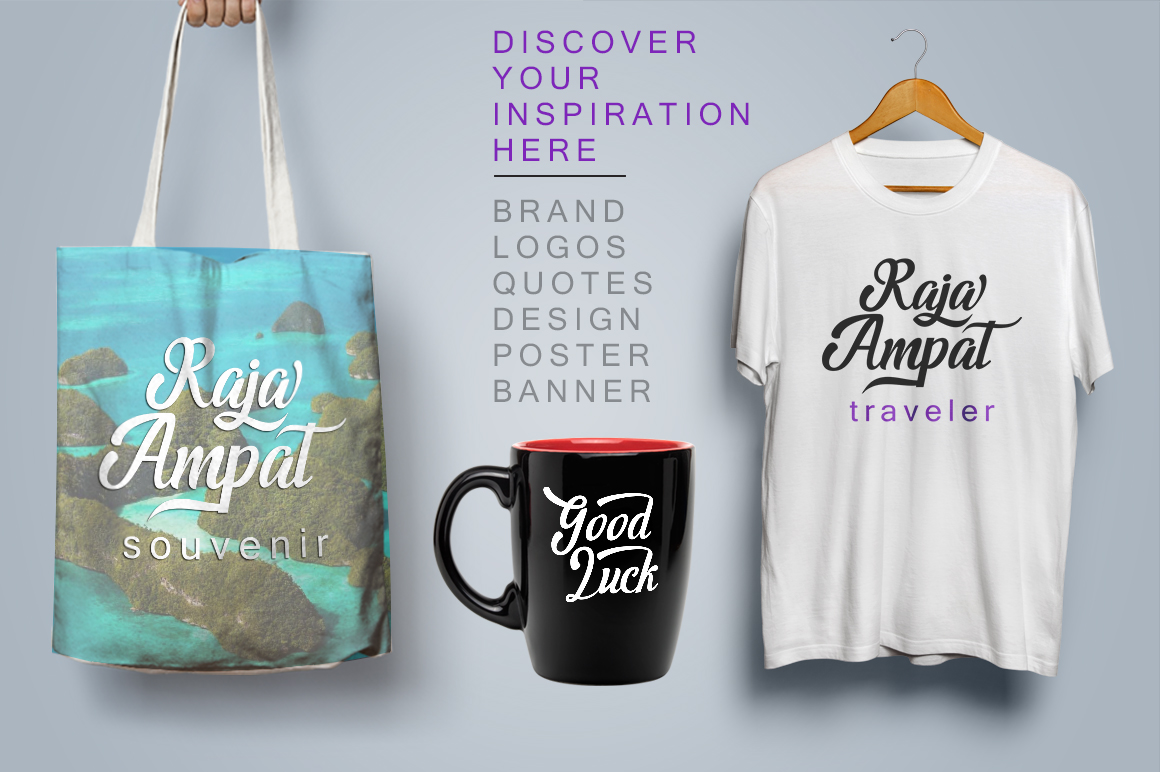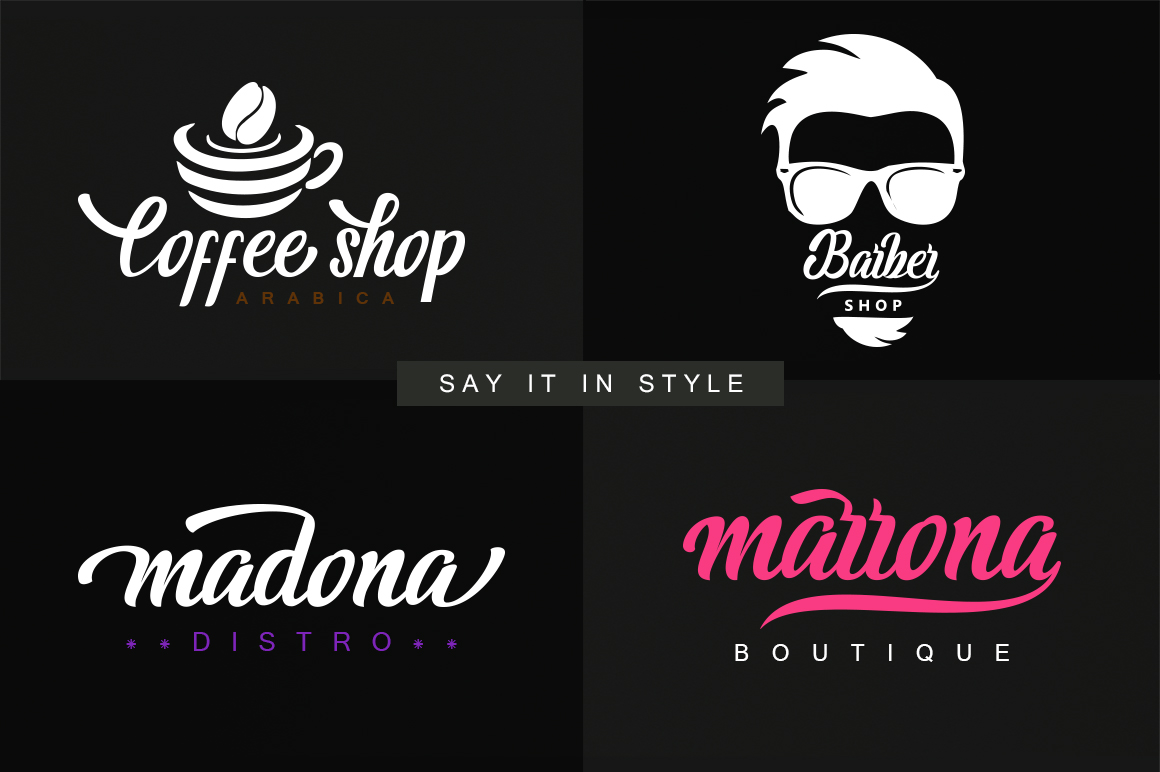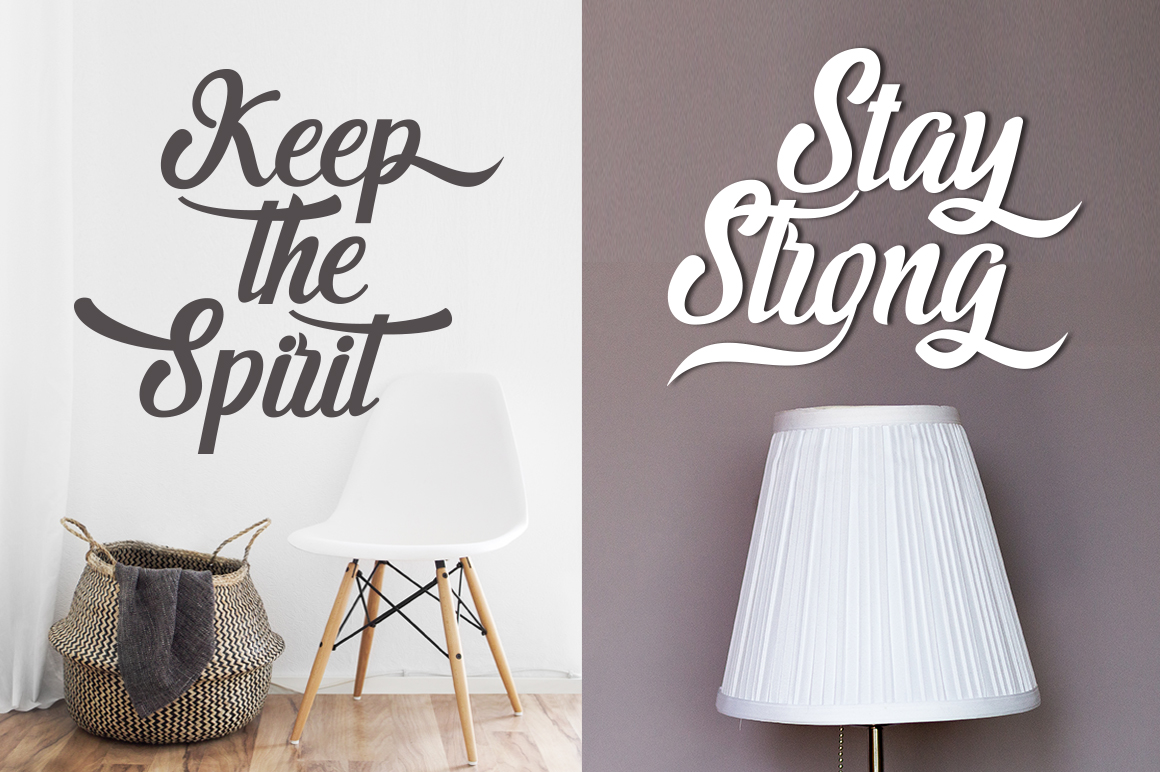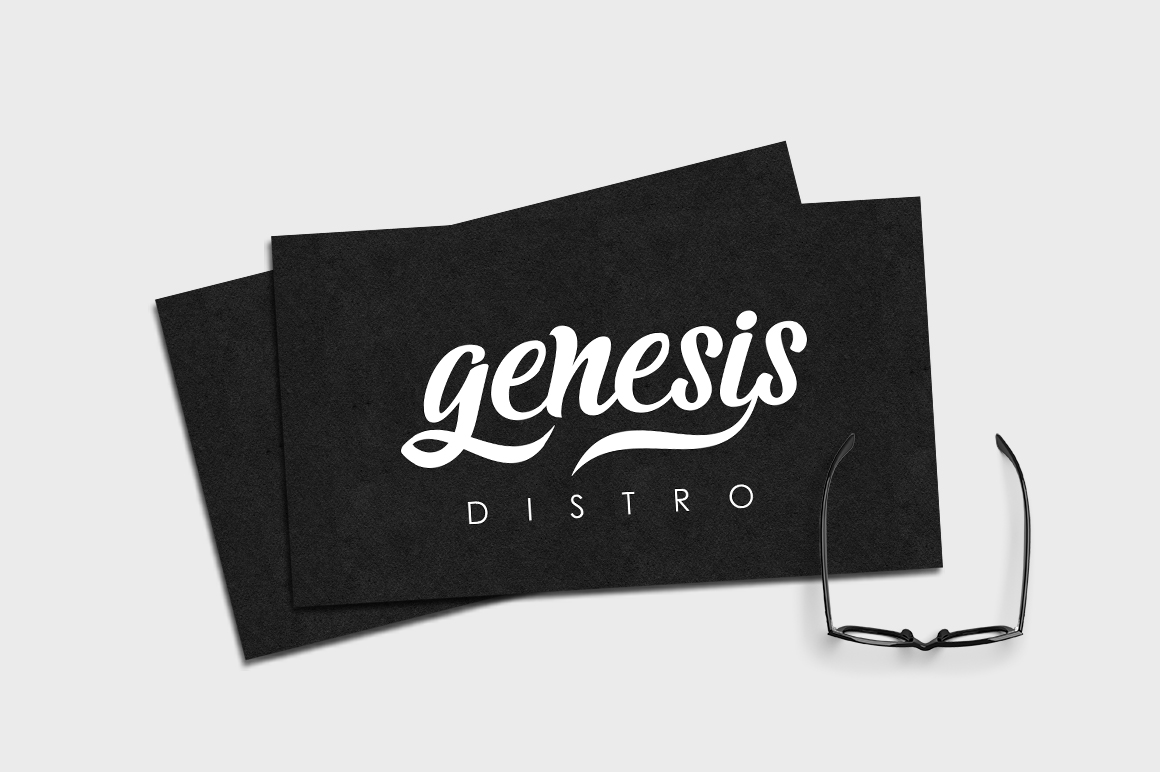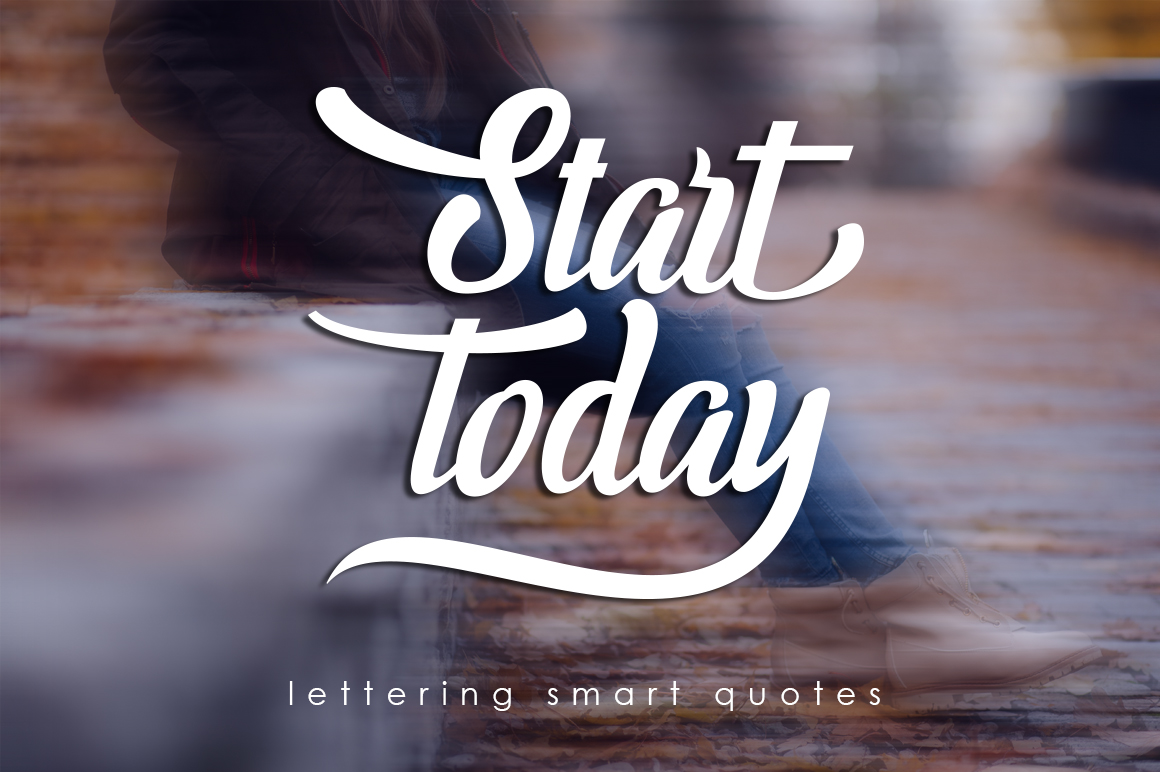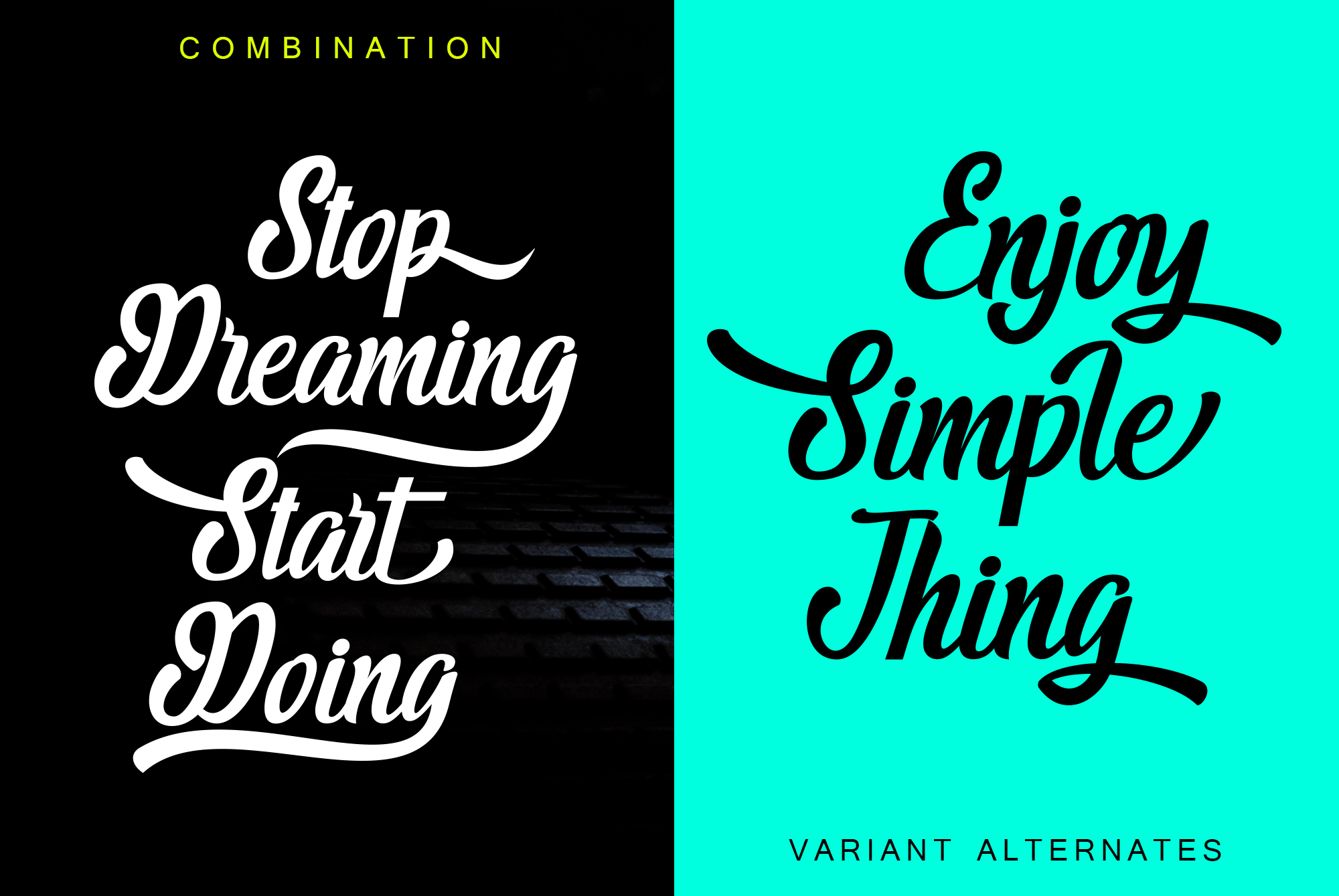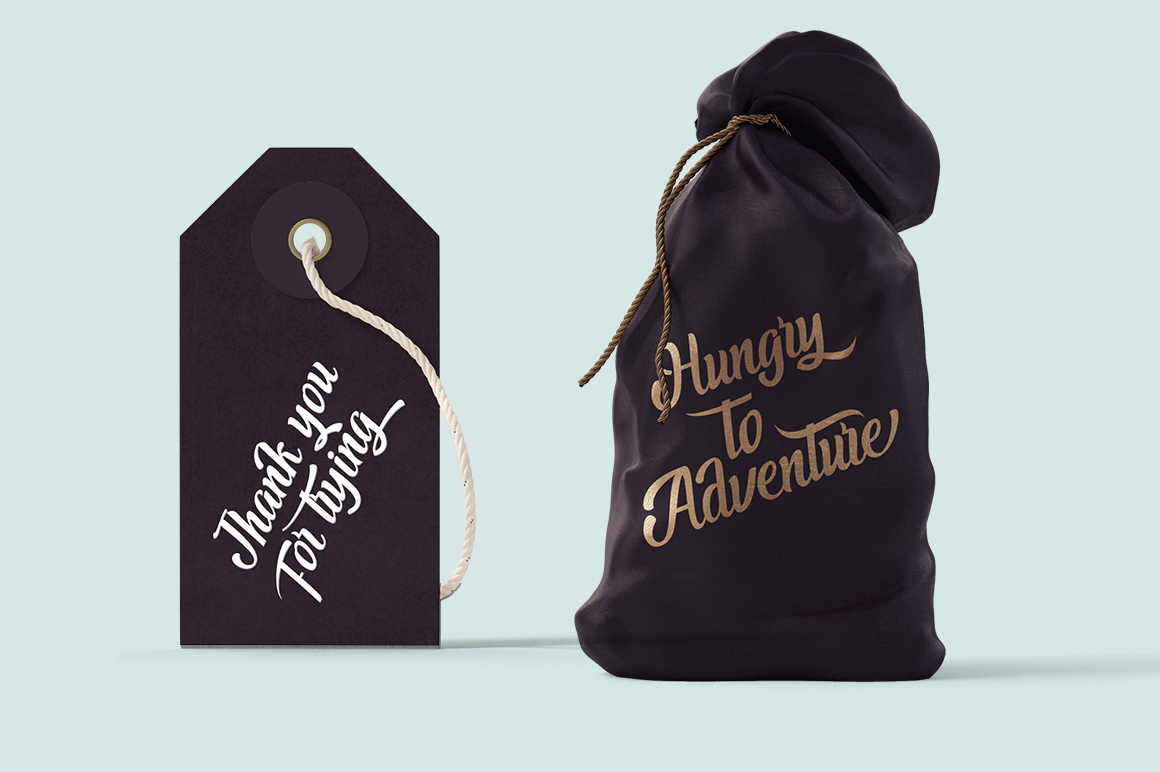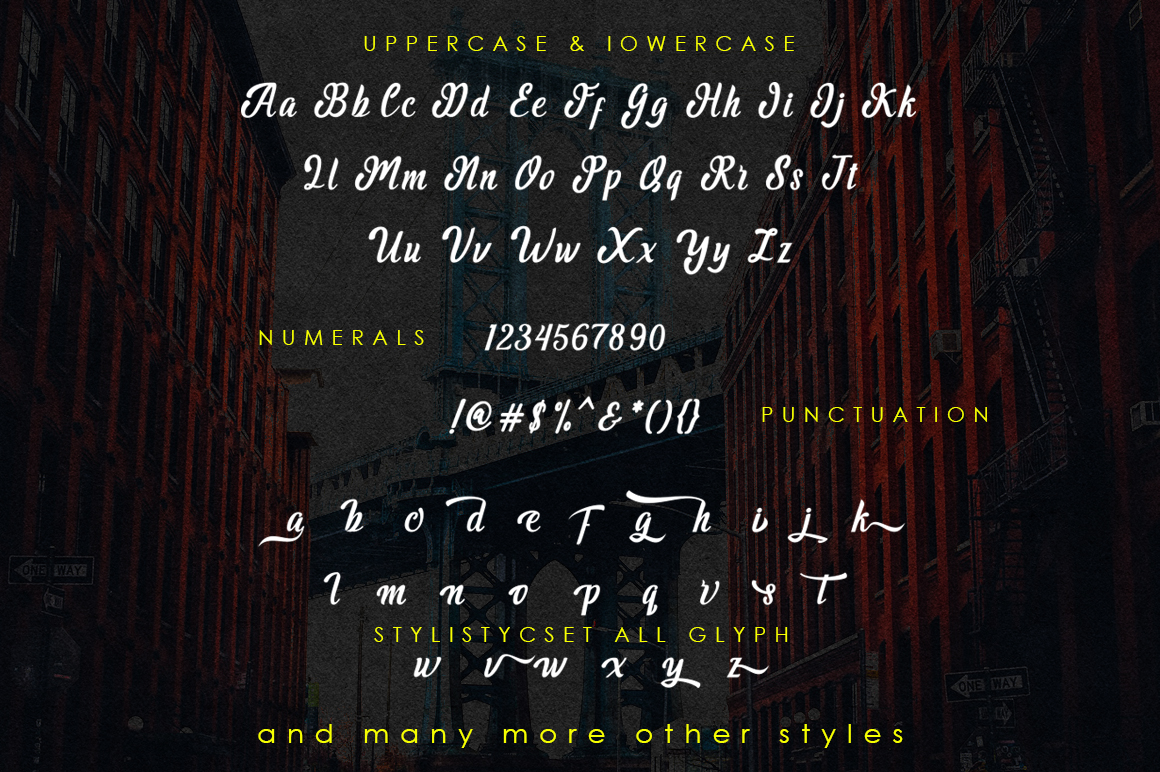
Majestic Font
About Majestic Font
Majestic is an extremely cool and modern take on script typeface. With a boldness and sporty flair, Majestic is perfect for a large range of display options.